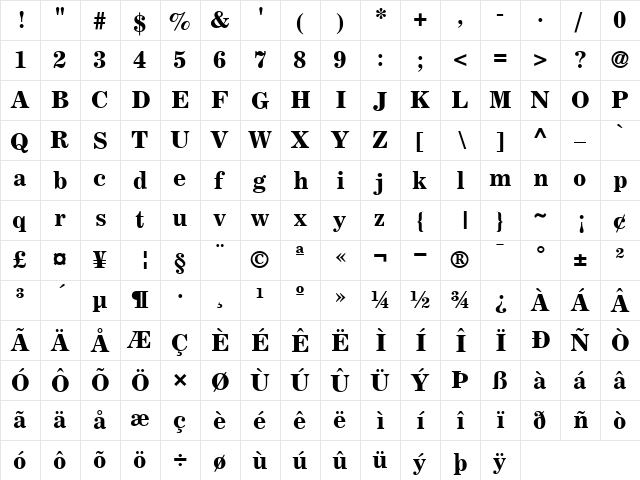
CoronaFaceNo.2 Bold
Design Context for CoronaFaceNo.2 Typeface
CoronaFaceNo.2 offers clean, dependable letterforms without strong stylistic allegiance, making it a practical choice for designers who need flexibility. The heavy weight commands attention and anchors typographic hierarchies.